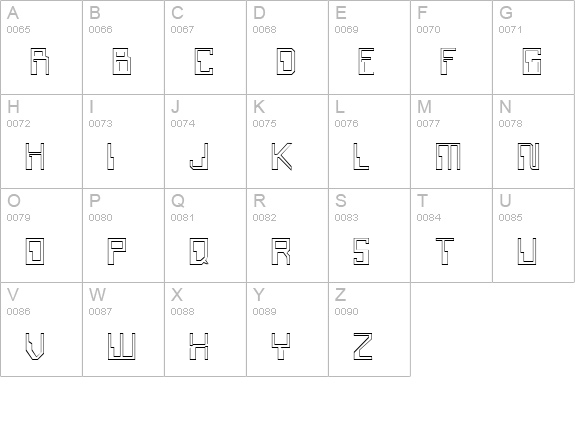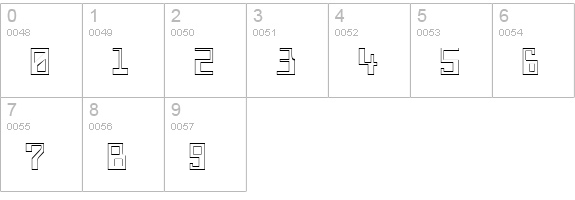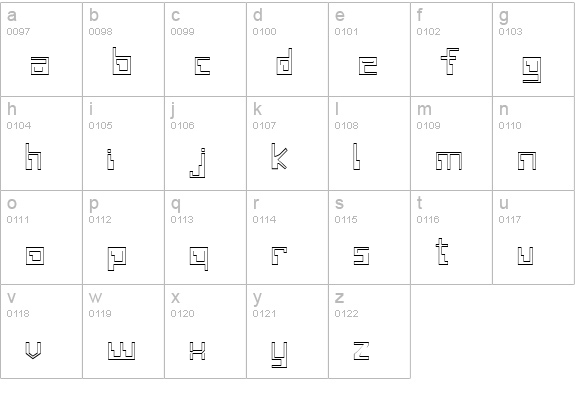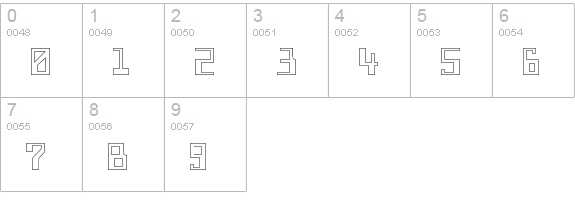
ChallengerOpen Font Details
ChallengerOpen is a modern and sleek font that exudes confidence and creativity. With its clean lines and sharp edges, this font is perfect for making a bold statement in any design project. Whether you're creating a logo, poster, or website, ChallengerOpen is sure to catch the eye of your audience. The best part? ChallengerOpen is completely free to download at FontsMarket.com! That's right, you can access this stylish font at no cost and use it in your projects without any restrictions. So why wait? Elevate your designs with ChallengerOpen today and make a lasting impression with its unique and captivating look.